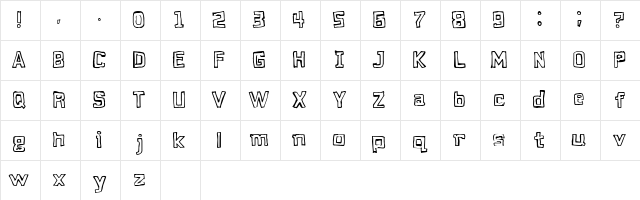
2Peas RP FolkStar Regular
Design Context for 2Peas RP FolkStar
2Peas RP FolkStar is a composed and adaptable typeface that performs quietly and consistently across a wide range of design contexts.